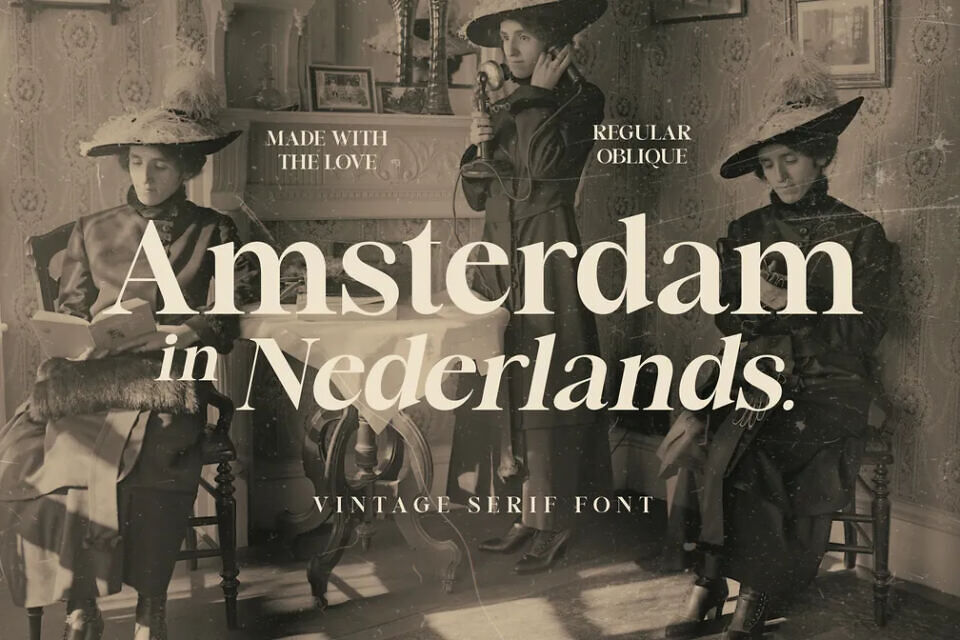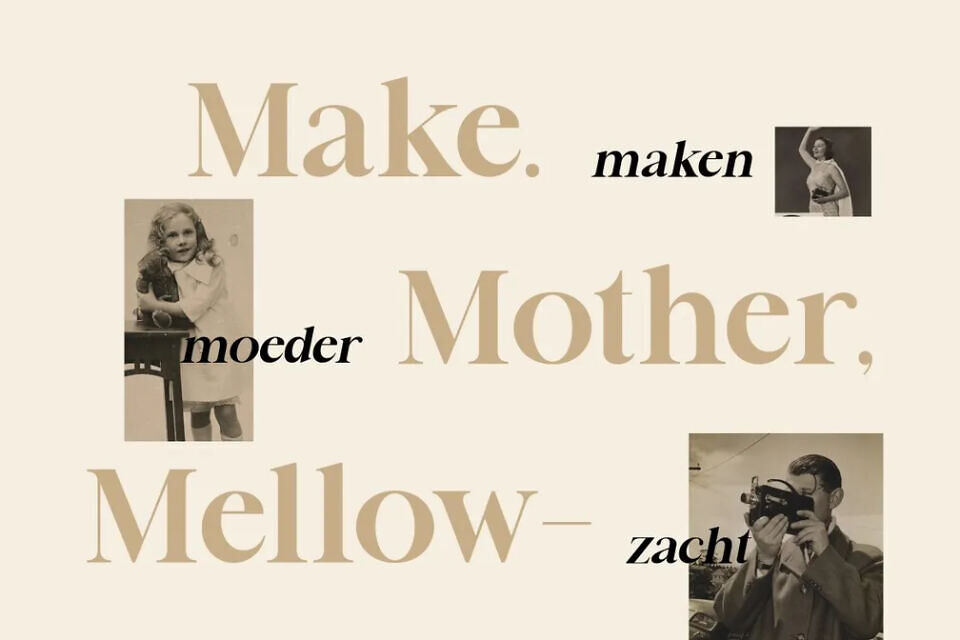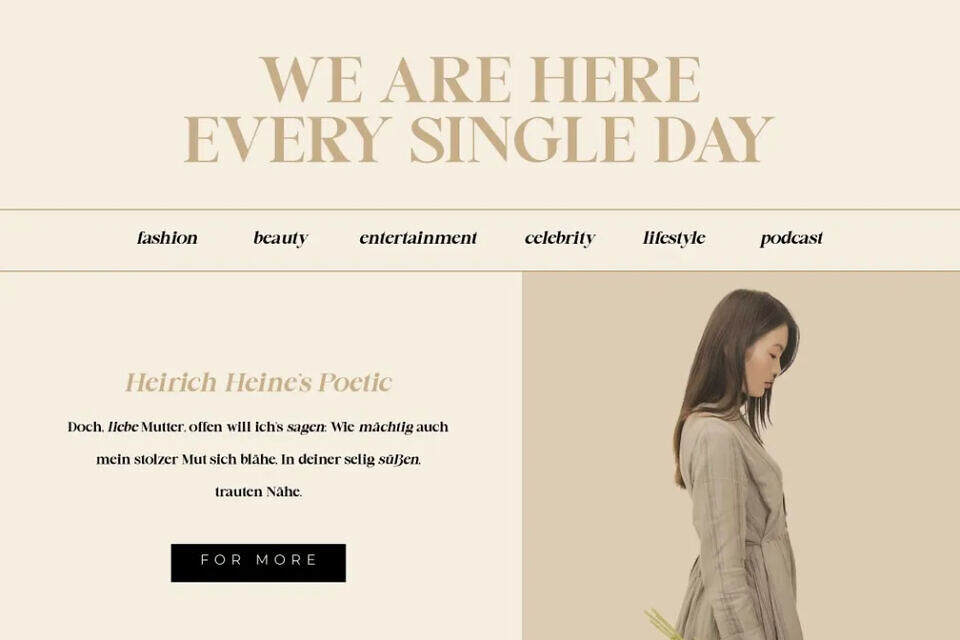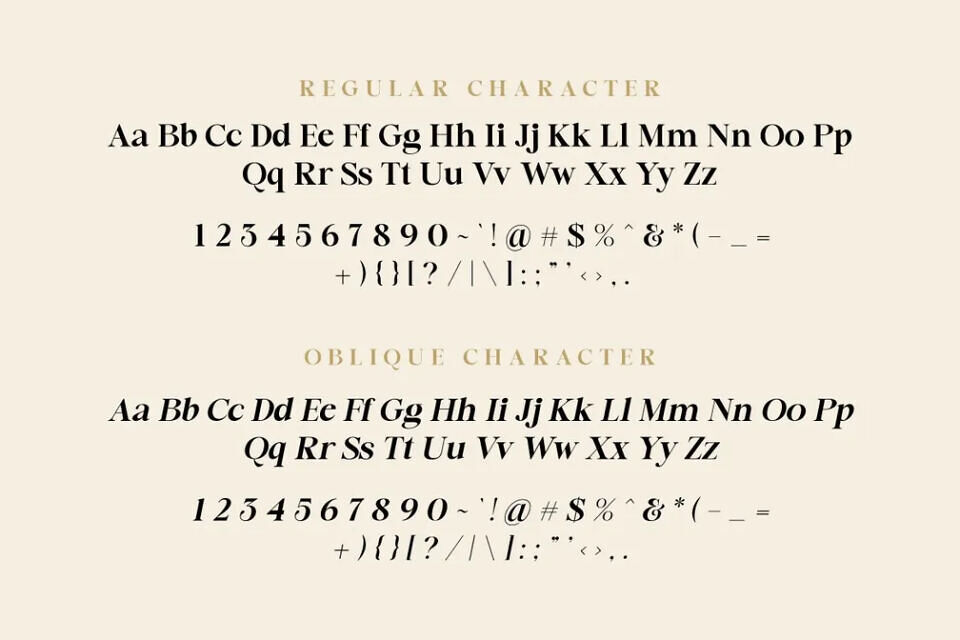
Amsterdam Serif is an elegant font suitable for business use. It blends seamlessly with both modern and classic designs, making it ideal for luxury applications such as high-end logos, menus, and wedding invitations. Its versatility also extends to web design and posters, creating a sophisticated look for various uses.